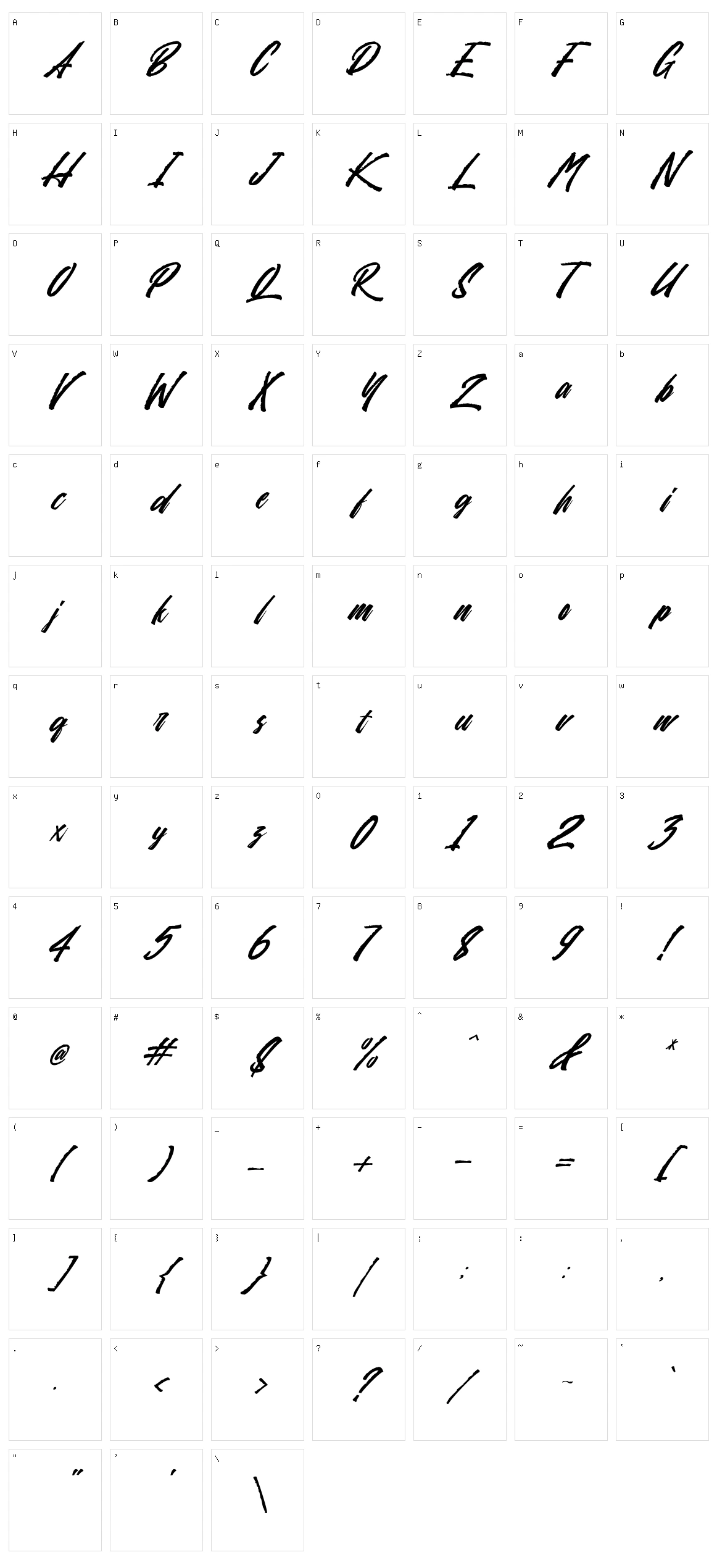
Proudly present "Sansha" Demo version. Sansha created with stylist and rough characters. This great font was PUA encoded . Sansha is a radical script typeface that comes with Extended Latin Characters.
You can hit out your creativity with this font more easily. Sansha works perfectly for logos, display, product branding, wedding invitation card, stationary, packaging, clothing, flyer, apparel, magazines, brochures, lable, posters, badges, etc.
Sansha comes with 376 glyphs and 107 alternate characters contain with opentype features. Sansha has many stylistic alternate characters that allowing you to make stuff looks more exclusive and pro standard.